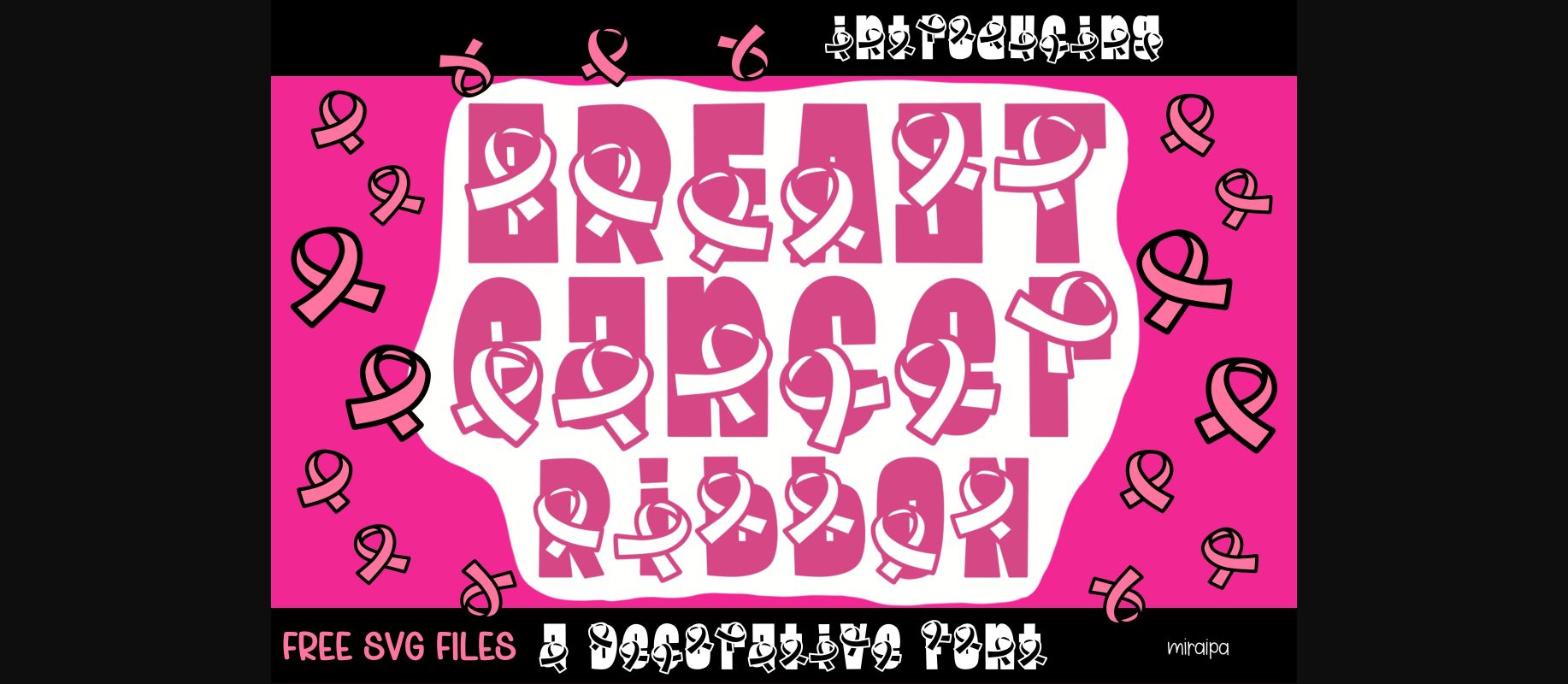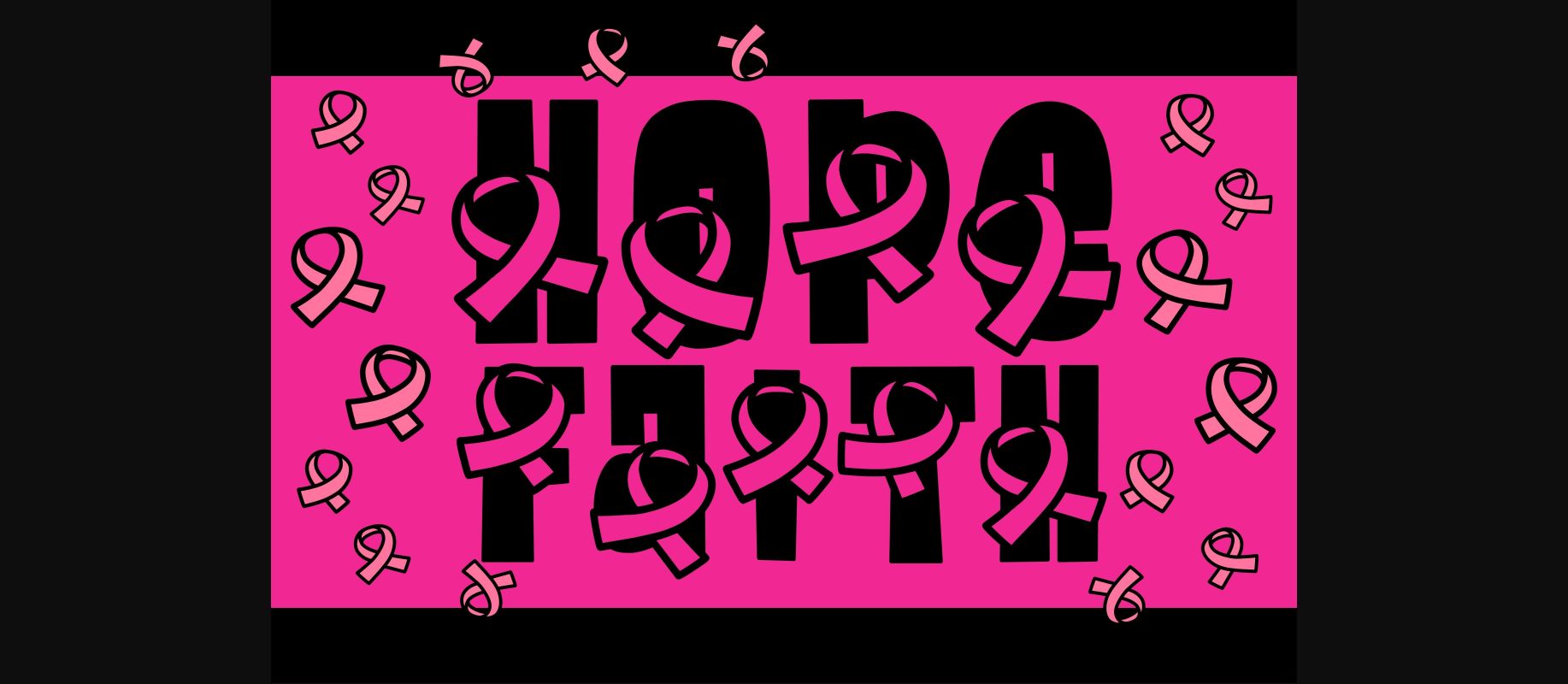
About Breast Cancer Ribbon Font
Breast Cancer Ribbon is a decorative font perfect for raising awareness and showing support for patients. Use it on posters, banners, and any other craft projects you may have.